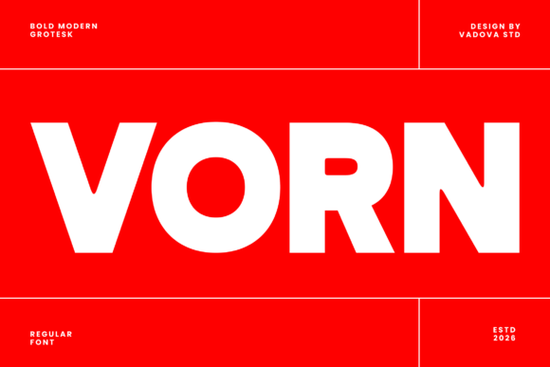
If you're looking for a typeface that makes a strong and modern statement, Vorn Font is an excellent choice. This bold modern grotesk sans serif font is designed to deliver a powerful typographic presence, making it perfect for projects that demand both boldness and clarity.
Understanding the Design of Vorn Font
Vorn Font is built with thick geometric strokes and confident letterforms, which give it a robust and contemporary feel. The design is inspired by classic grotesk typography but incorporates modern proportions and clean curves. This blend of traditional and modern elements results in a versatile and impactful font.
Key Features of Vorn Font
- Bold and Modern: Vorn's heavy weight and balanced spacing make it ideal for large headlines, bold branding, and striking editorial layouts.
- Versatile Use: It works perfectly for branding identities, advertising campaigns, posters, packaging, sports branding, tech branding, social media graphics, and more.
- Strong Visual Impact: The font's design ensures that it stands out, making it a great choice for projects where clear readability and visual impact are essential.
When to Use Vorn Font
Vorn Font is particularly well-suited for projects that require a strong and confident typographic presence. For example, if you're working on a brand identity or an advertising campaign, Vorn can help you create a memorable and impactful design. Its bold and modern style also makes it a great choice for posters, packaging, and social media graphics.
Comparing Vorn with Other Sans Serif Fonts
While Vorn Font stands out with its bold and modern design, it's helpful to compare it with other popular sans serif fonts to understand its unique qualities. For instance, Cenura Font offers a more minimalist and elegant look, while Sugra Font has a more playful and dynamic feel. Ocean Beach Font brings a relaxed, coastal vibe, making it perfect for casual and laid-back designs.
Each of these fonts has its own strengths, and choosing the right one depends on the specific needs and aesthetic of your project. Vorn, with its bold and modern characteristics, is ideal when you need a typeface that commands attention and conveys strength and confidence.
How to Incorporate Vorn Font into Your Designs
Incorporating Vorn Font into your designs is straightforward. Here are some practical tips to get you started:
- Choose the Right Context: Use Vorn for large headlines, logos, and any design element where you want to make a strong visual impact.
- Balance with Other Fonts: Pair Vorn with a lighter, more readable font for body text to create a balanced and harmonious design.
- Experiment with Colors: Vorn's bold design can be enhanced with vibrant colors, but it also looks great in classic black and white.
- Test Readability: Ensure that the font size and spacing are appropriate for the medium, whether it's print, web, or digital displays.
Practical Checklist for Using Vorn Font
- Identify the key areas in your design where Vorn can make the most impact.
- Choose complementary fonts for body text and other design elements.
- Test different color combinations to see what works best for your project.
- Check the readability and adjust the font size and spacing as needed.
By following these steps, you can effectively incorporate Vorn Font into your designs and create visually striking and impactful projects. Whether you're working on a brand identity, a poster, or a social media graphic, Vorn Font is a reliable choice for adding a bold and modern touch.